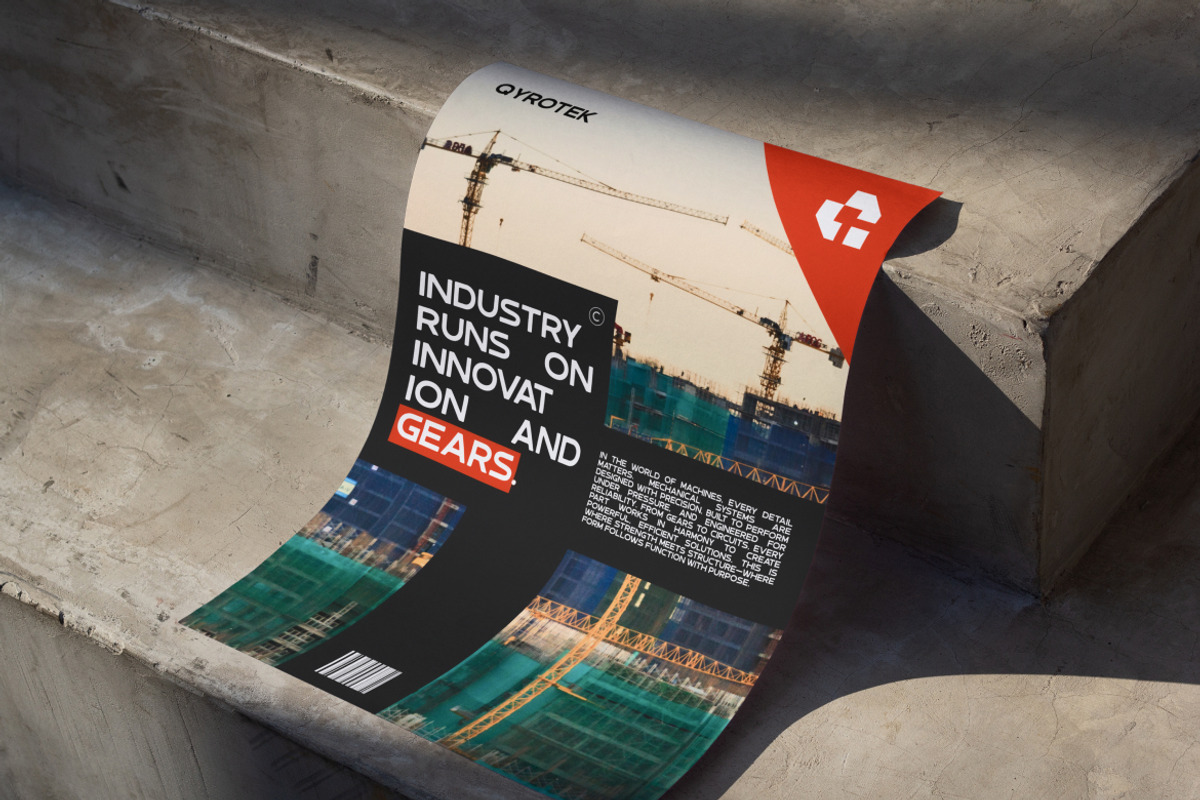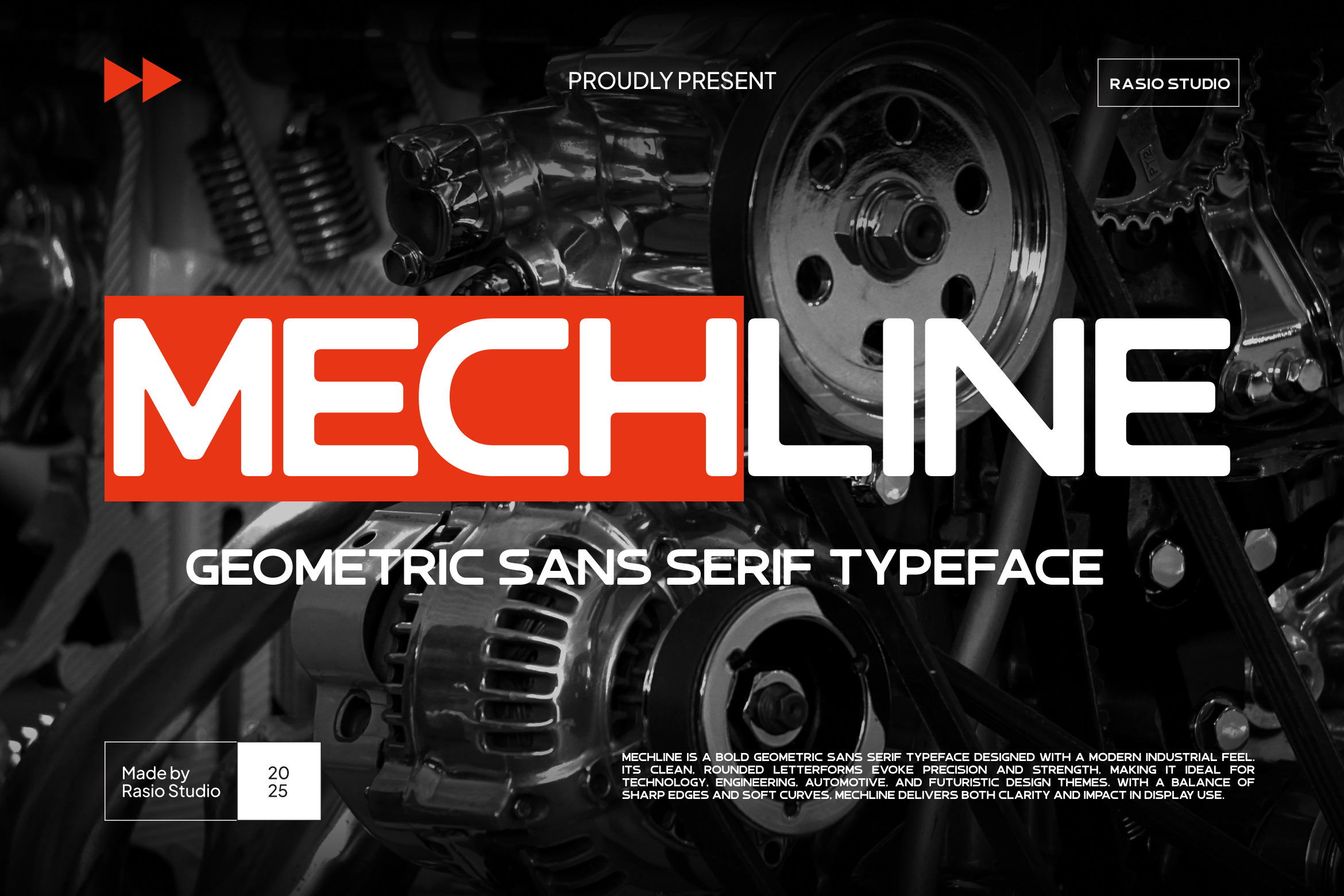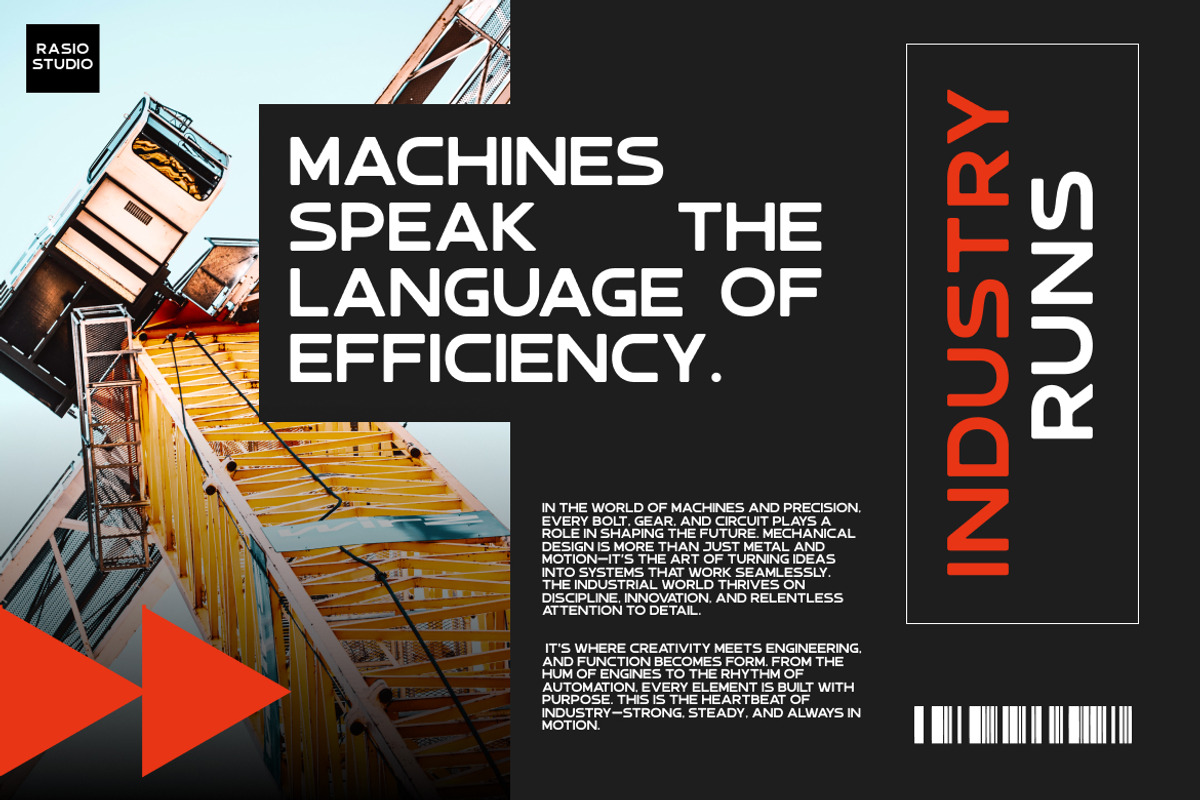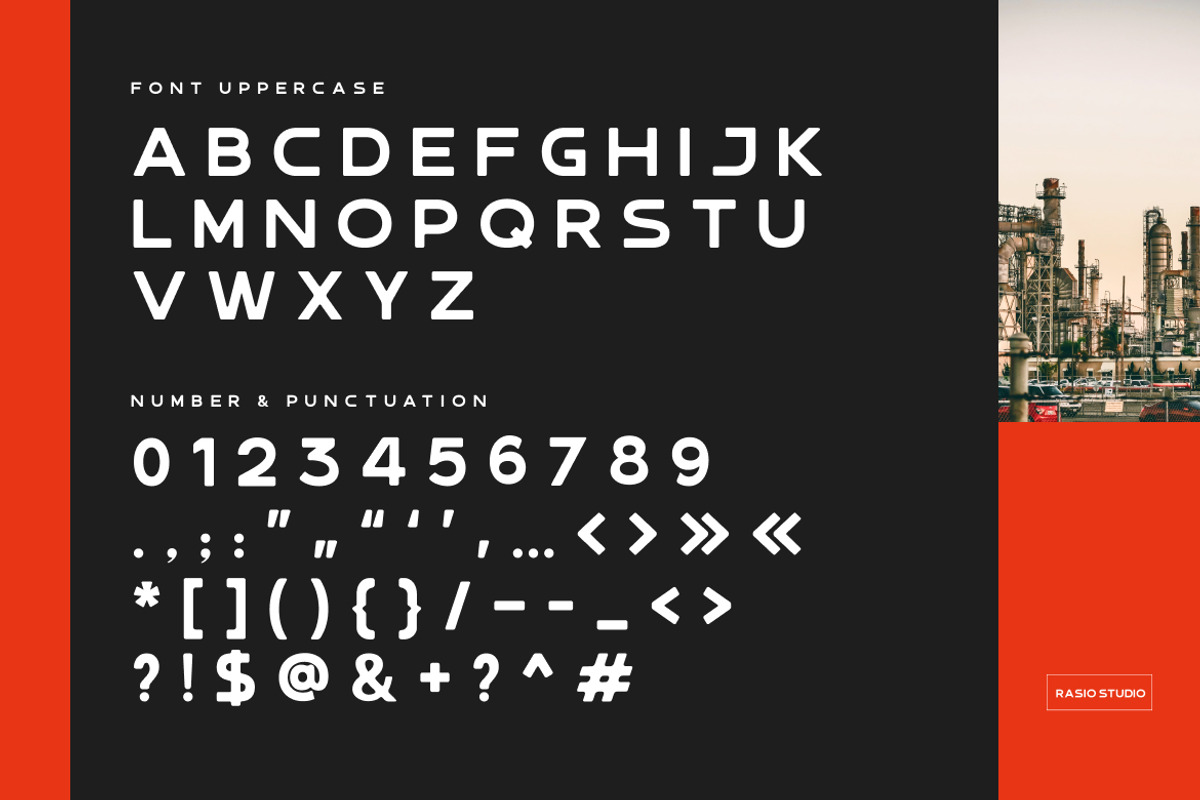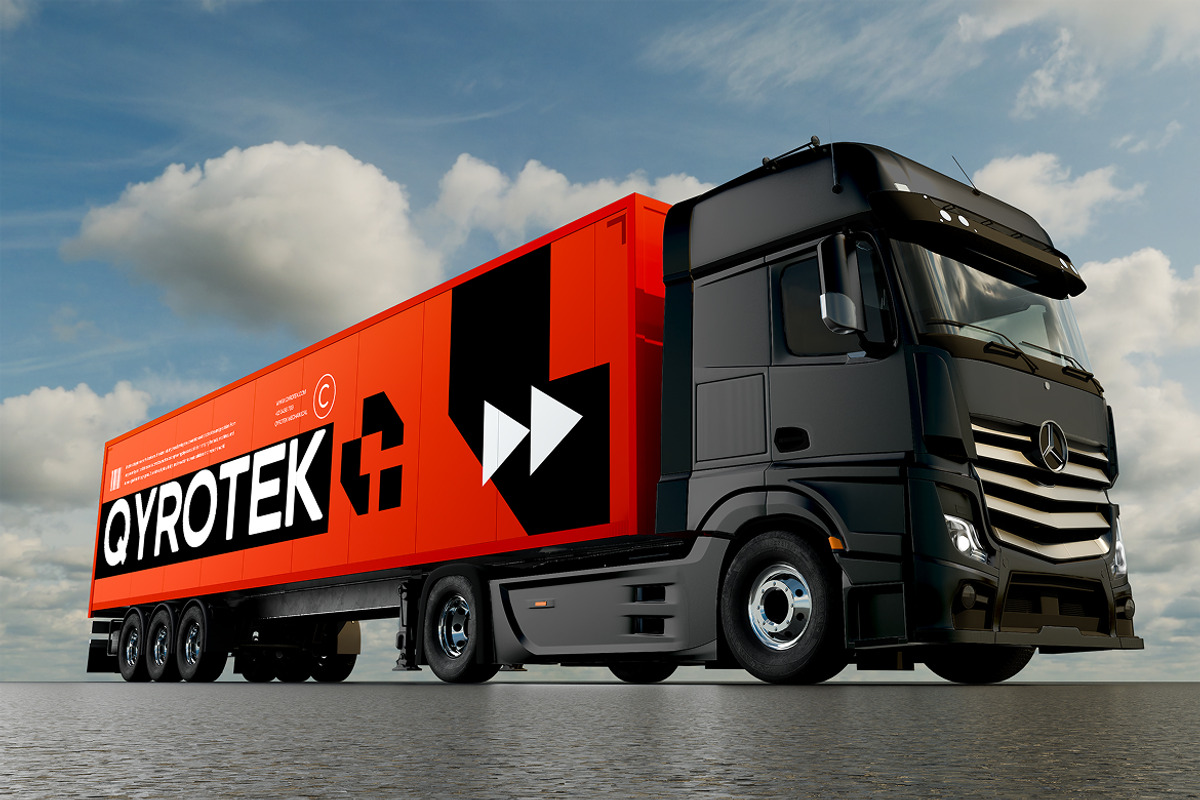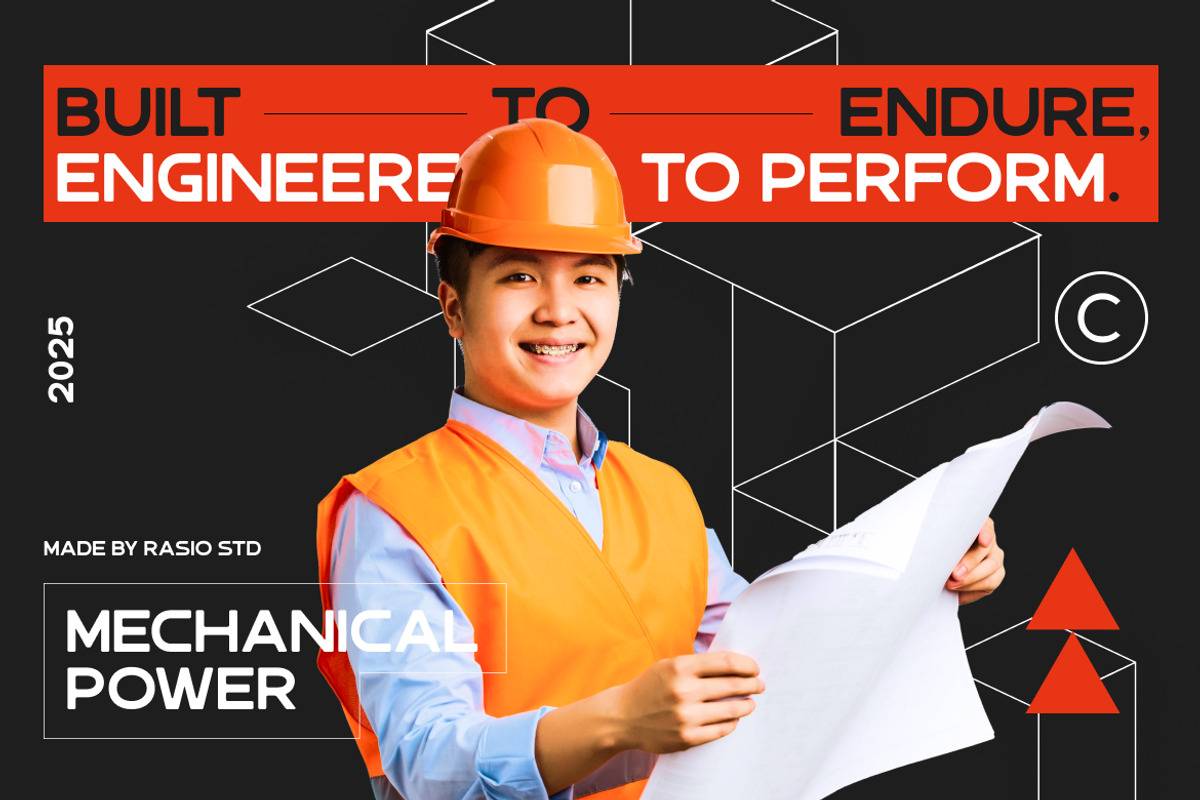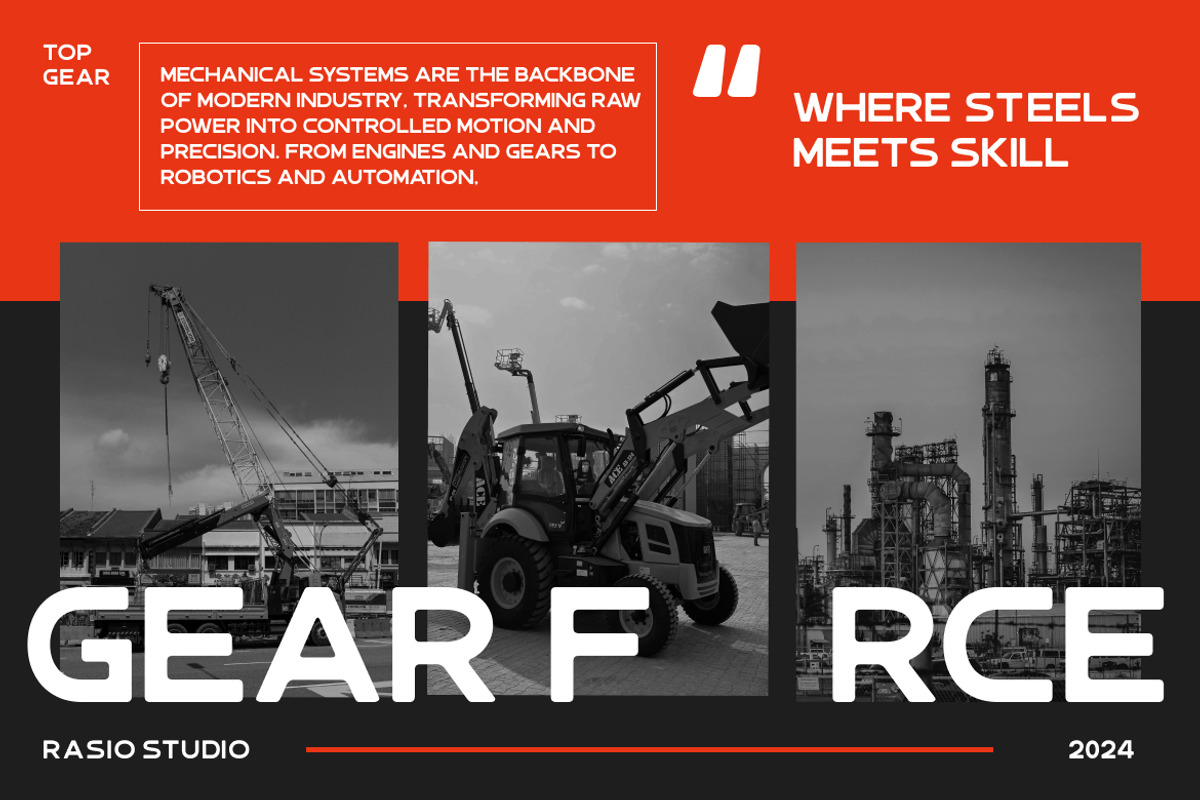
Mechline Geometric Sans Serif Font
Mechline is a bold geometric sans serif font crafted with a sleek industrial edge. Featuring uppercase-only characters, modern proportions, and clean rounded corners, it blends strength with precision. Ideal for tech-forward branding, engineering layouts, automotive industries, and digital products. Comes with a complete uppercase alphabet, numbers, punctuation, and symbols. The font is optimized for impactful headers, posters, and display purposes
Mechline is the perfect font for designers working on high-impact visual branding in industrial, mechanical, and tech sectors. Its bold form and modern styling suit everything from engineering posters, automotive catalogs, and startup branding to packaging, software UI, and hardware ads. The clean, sharp design ensures clarity and presence even in fast-paced digital environments.
- Bold geometric sans serif with a clean industrial aesthetic
- Rounded corners for a modern yet technical appearance
- Balanced proportions combining sharp edges and soft curves
- All-uppercase character set for maximum visual impact
- Optimized spacing for clear legibility in large-scale layouts
- Engineering and industrial branding needing a strong, modern tone
- Tech product packaging and futuristic UI/UX mockups
- Automotive posters, ads, and startup pitch decks
- Display headlines for science, robotics, or innovation themes
- Event visuals and merchandise with a mechanical or urban edge
Mechline pairs bold geometry with industrial clarity for powerful modern visuals